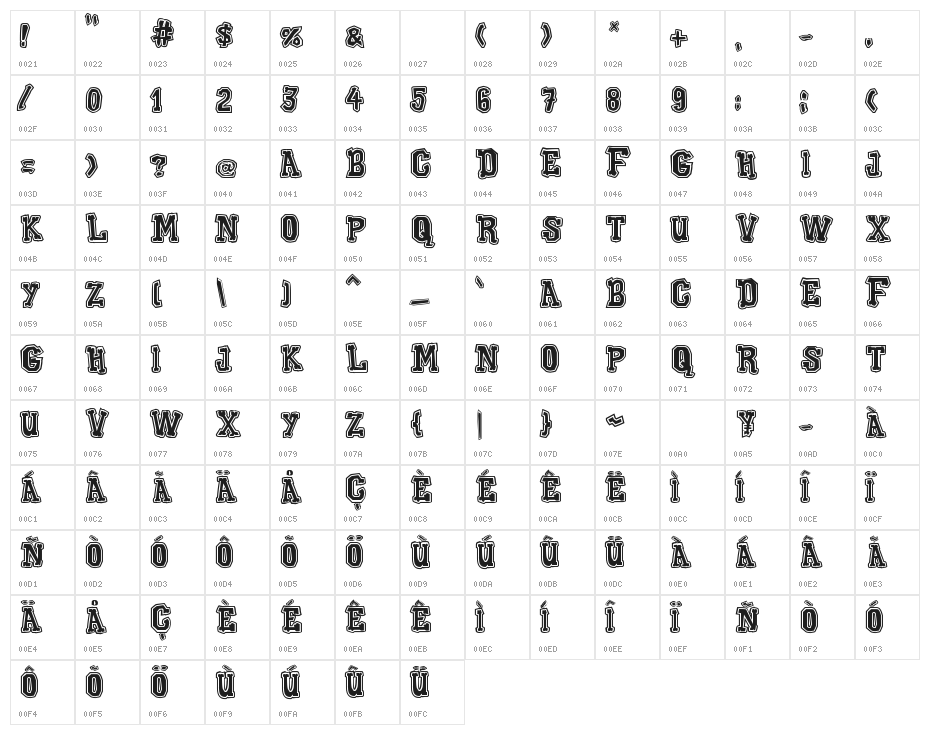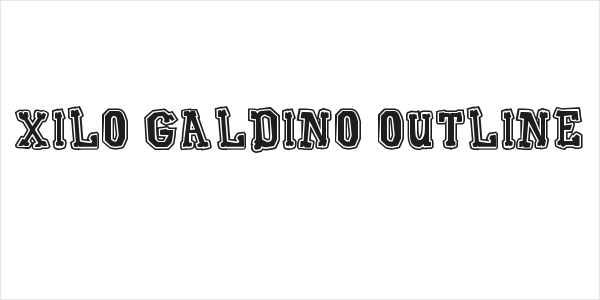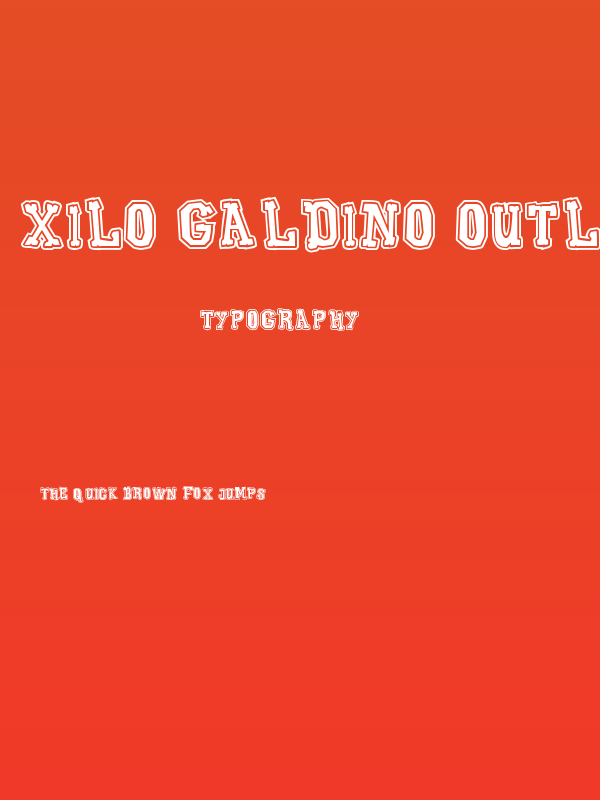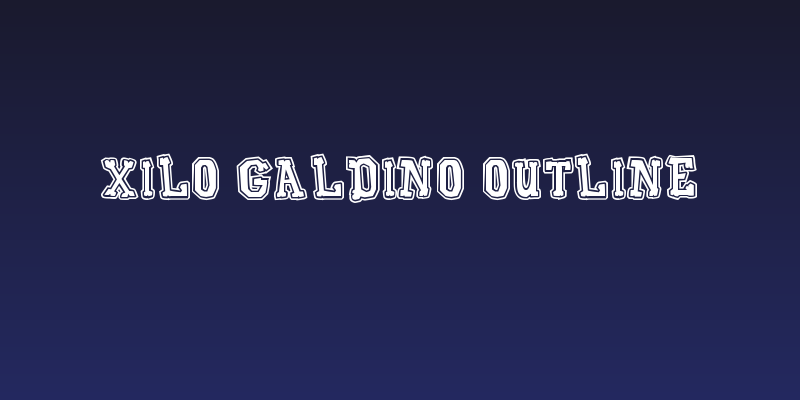
Xilo Galdino Outline Font
Xilo Galdino Outline Description
This font features a bold, outlined style that gives each character a striking and impactful appearance. The letters are uppercase and lowercase, with a consistent outline that enhances their visibility and adds a decorative touch. The numbers and special characters follow the same design, ensuring uniformity across all elements. The font's style is reminiscent of vintage signage, with a playful yet sturdy look that makes it suitable for eye-catching designs. The bold outlines create a strong contrast, making the characters stand out against any background.
| Proposed Projects | Ideal for posters, logos, headlines, and any design requiring a bold, eye-catching font. |